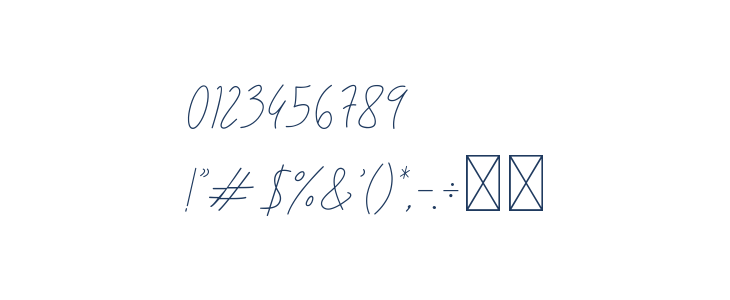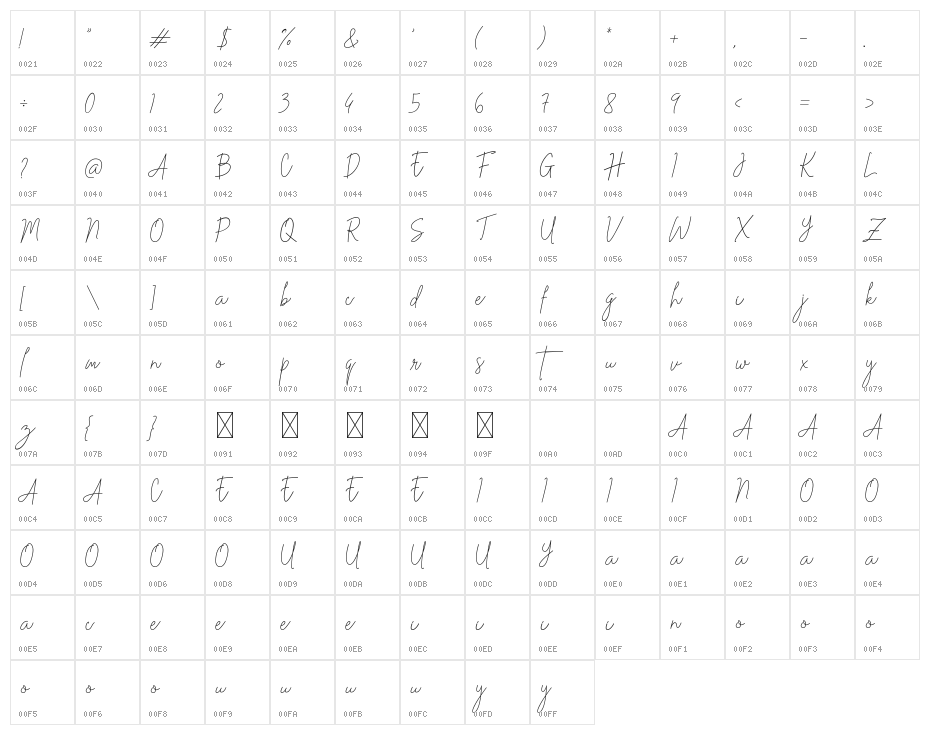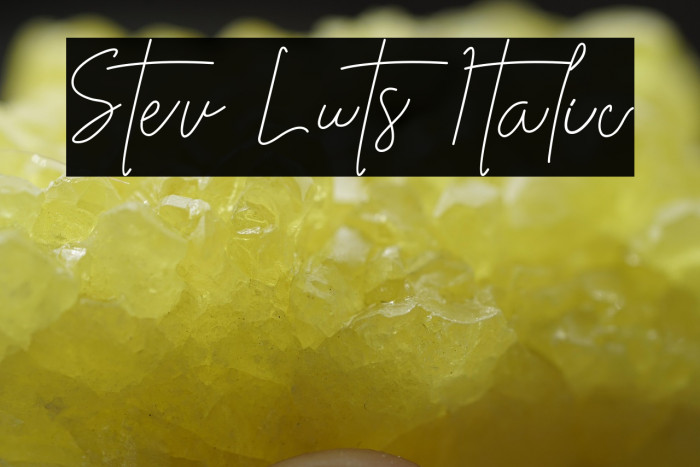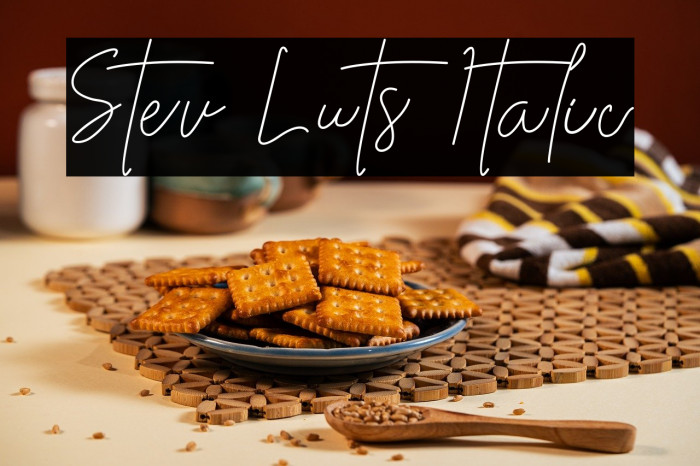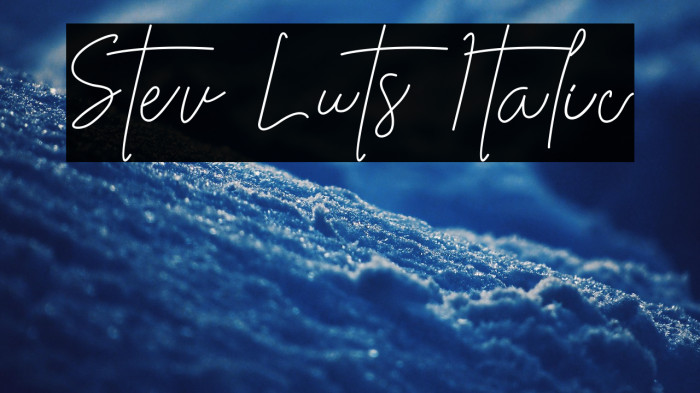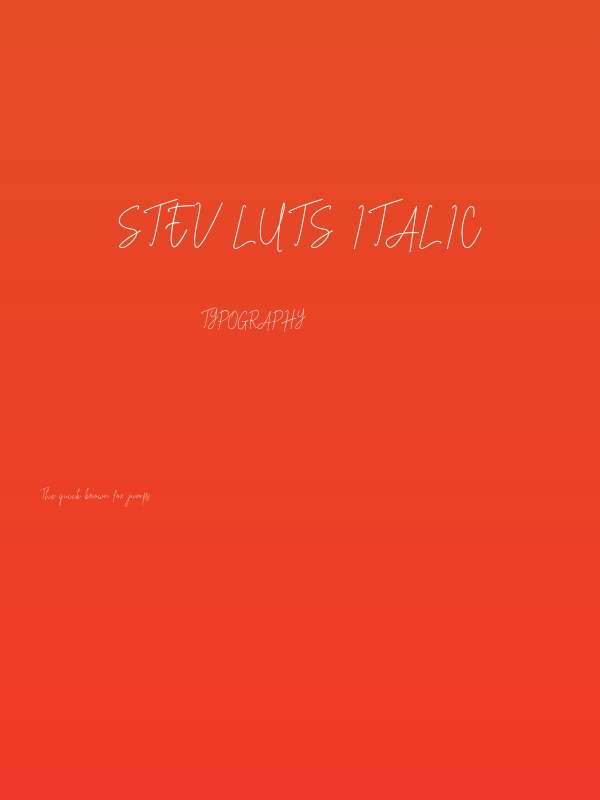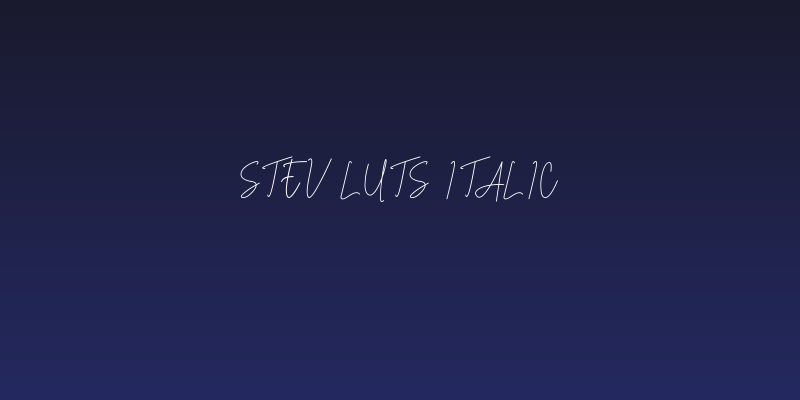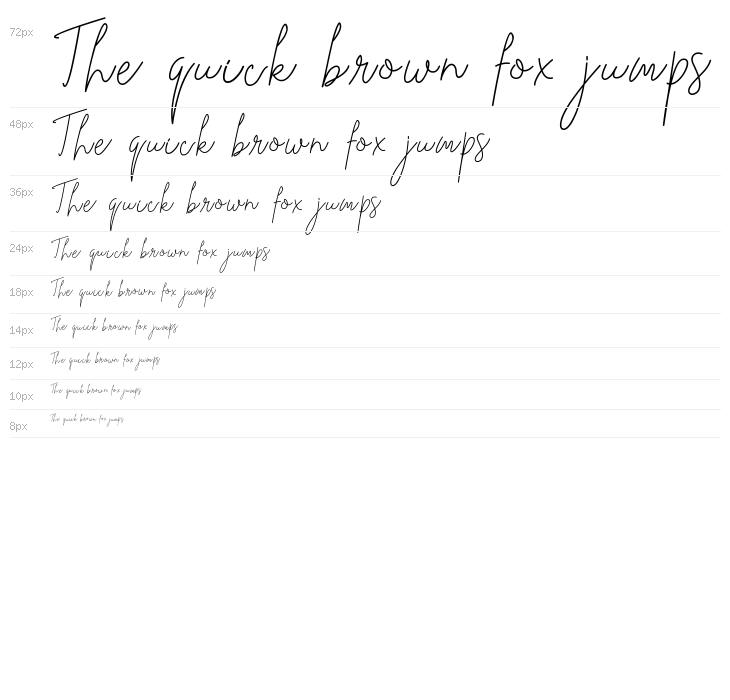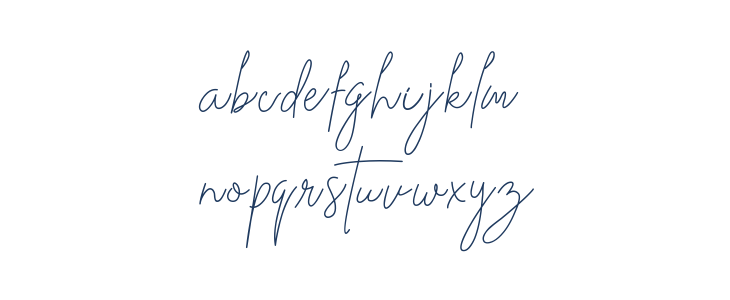
Stev Luts Italic Font
Stev Luts Italic Description
This font features a flowing, cursive style with elegant, elongated letterforms that convey a sense of sophistication and grace. The characters are connected in a seamless manner, enhancing the fluidity of the text. The strokes are thin and delicate, providing a light and airy feel. The uppercase letters maintain a consistent height, while the lowercase letters exhibit a slight slant, adding to the italicized appearance. The numerals and special characters are designed to match the overall aesthetic, ensuring a cohesive look across all text elements. This font is ideal for projects that require a touch of elegance and personal flair.